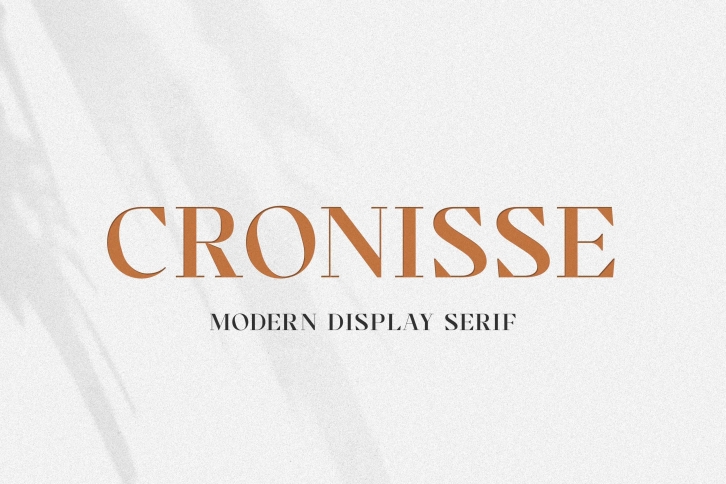
Cronisse is a trendy and unique font with an authentic style. It was designed by Almarkha Type and it's a great choice for creative people who need such a font. It was released on July 21, 2020 and the file size is 3.14 MB. Cronisse will add an organic vibe to any design idea!